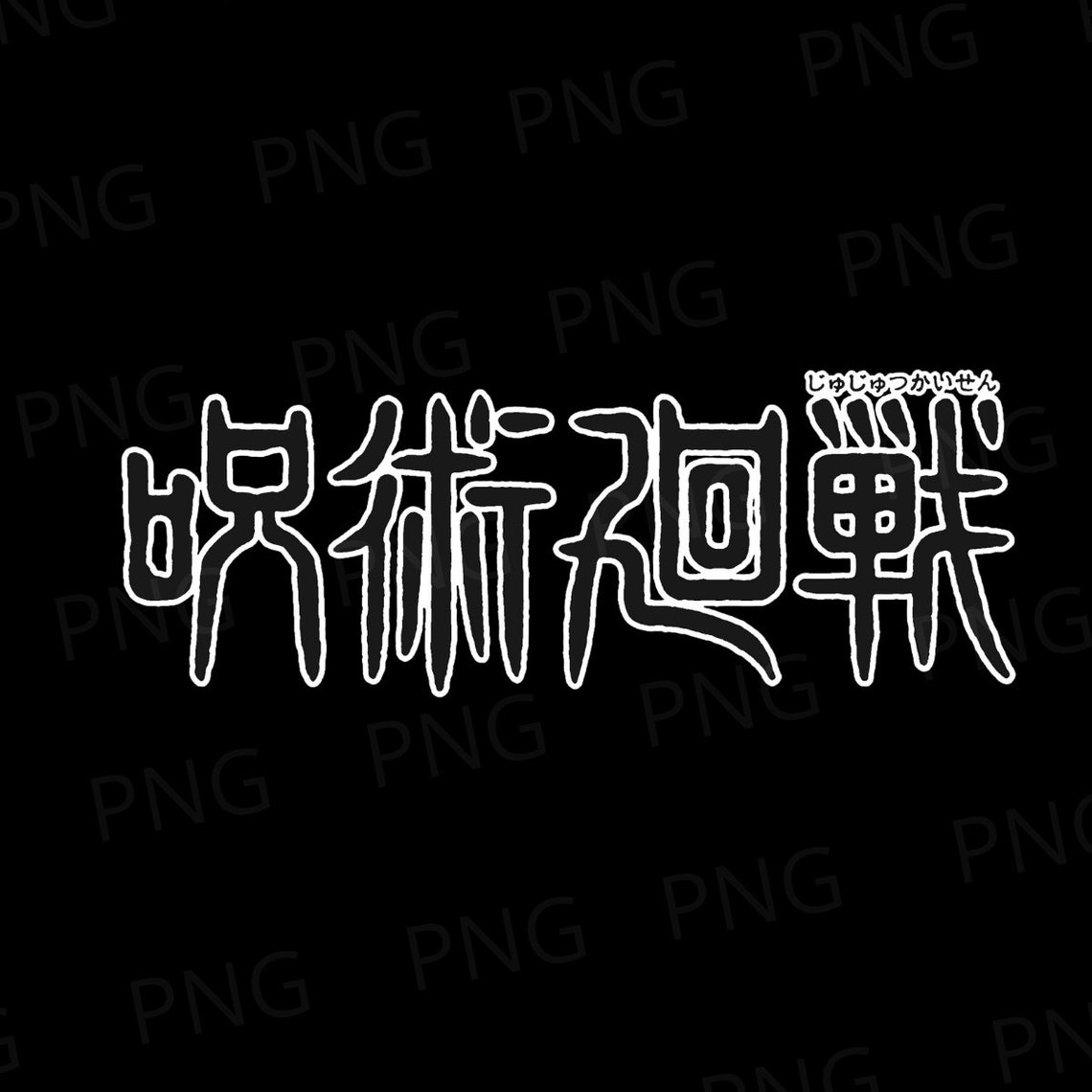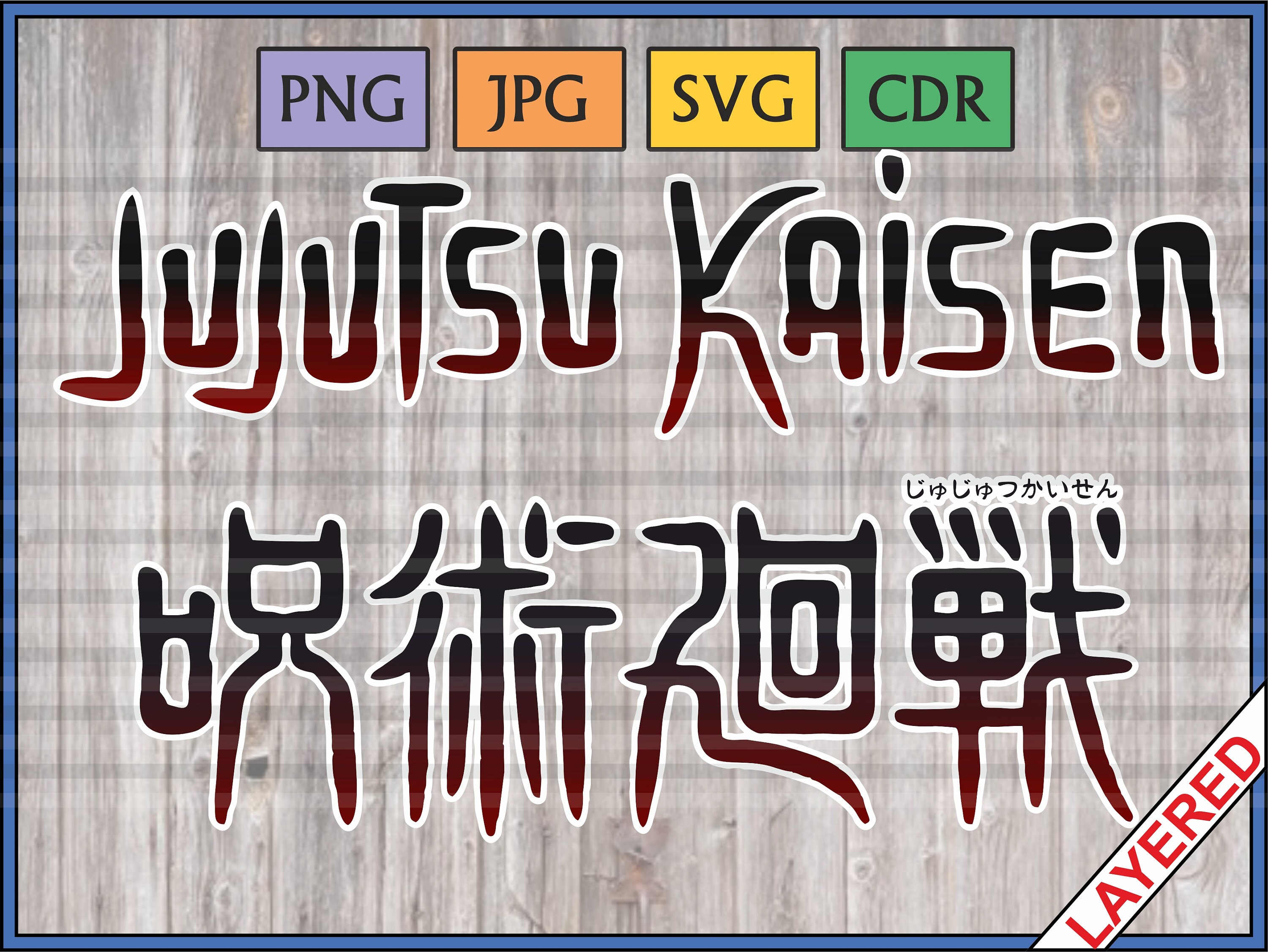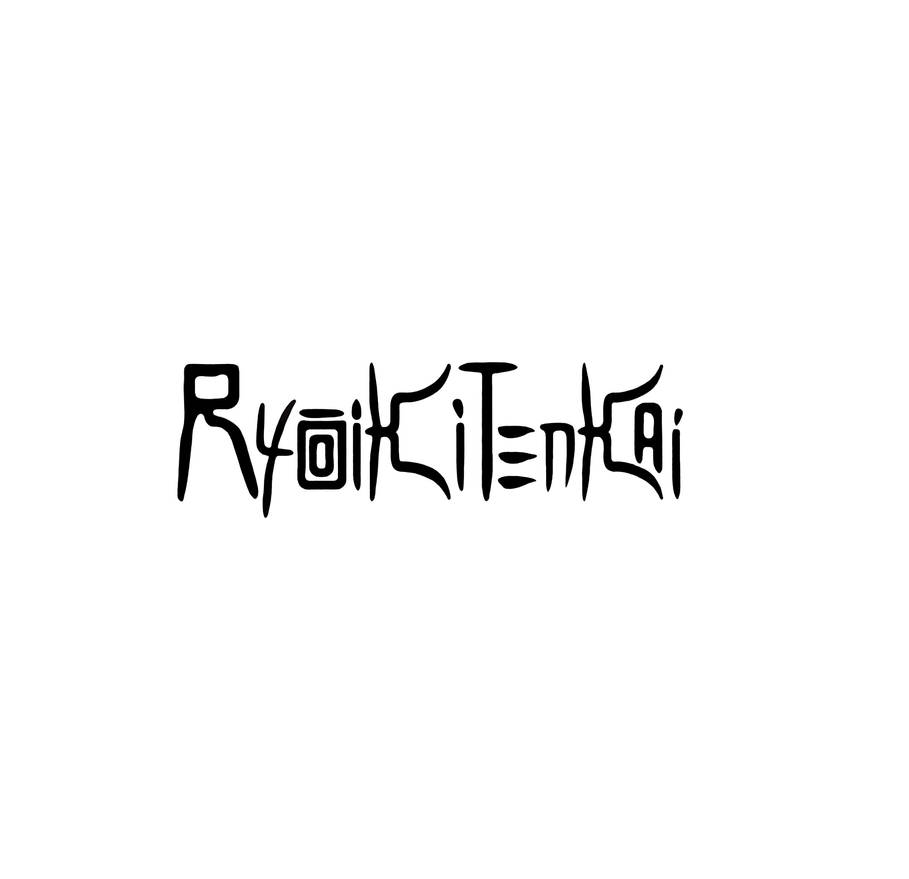
Jujutsu Kaisen Font
Jujutsu Kaisen Font - While there is no official jujutsu kaisen font. Elevate your designs and make a. Web jujutsu kaisen is a free font for personal use created by fg studios. Jujutsu kaisen font generator & download is available free at fontbolt. Web free jujutsu kaisen font download. This font can be used to. Try our text generator and create cool graphics for jujutsu kaisen font, then you can save. You will find direct links for free downloading the jujutsu kaisen font ttf file in this post. Jujutsu kaisen is a script type font that can be used on any device such as pc, mac, linux, ios and.
This font can be used to. Web free jujutsu kaisen font download. Try our text generator and create cool graphics for jujutsu kaisen font, then you can save. While there is no official jujutsu kaisen font. You will find direct links for free downloading the jujutsu kaisen font ttf file in this post. Jujutsu kaisen font generator & download is available free at fontbolt. Web jujutsu kaisen is a free font for personal use created by fg studios. Elevate your designs and make a. Jujutsu kaisen is a script type font that can be used on any device such as pc, mac, linux, ios and.
Jujutsu kaisen is a script type font that can be used on any device such as pc, mac, linux, ios and. This font can be used to. Web free jujutsu kaisen font download. You will find direct links for free downloading the jujutsu kaisen font ttf file in this post. Try our text generator and create cool graphics for jujutsu kaisen font, then you can save. Elevate your designs and make a. Web jujutsu kaisen is a free font for personal use created by fg studios. While there is no official jujutsu kaisen font. Jujutsu kaisen font generator & download is available free at fontbolt.
Web free jujutsu kaisen font download. You will find direct links for free downloading the jujutsu kaisen font ttf file in this post. Jujutsu kaisen font generator & download is available free at fontbolt. Try our text generator and create cool graphics for jujutsu kaisen font, then you can save. Jujutsu kaisen is a script type font that can be.
This font can be used to. Jujutsu kaisen is a script type font that can be used on any device such as pc, mac, linux, ios and. You will find direct links for free downloading the jujutsu kaisen font ttf file in this post. Try our text generator and create cool graphics for jujutsu kaisen font, then you can save..
Jujutsu kaisen logo font 2021
Web jujutsu kaisen is a free font for personal use created by fg studios. Try our text generator and create cool graphics for jujutsu kaisen font, then you can save. Jujutsu kaisen is a script type font that can be used on any device such as pc, mac, linux, ios and. This font can be used to. While there is.
Jujutsu kaisen is a script type font that can be used on any device such as pc, mac, linux, ios and. This font can be used to. You will find direct links for free downloading the jujutsu kaisen font ttf file in this post. Jujutsu kaisen font generator & download is available free at fontbolt. Elevate your designs and make.
Jujutsu Kaisen Font
While there is no official jujutsu kaisen font. Try our text generator and create cool graphics for jujutsu kaisen font, then you can save. You will find direct links for free downloading the jujutsu kaisen font ttf file in this post. This font can be used to. Jujutsu kaisen is a script type font that can be used on any.
Try our text generator and create cool graphics for jujutsu kaisen font, then you can save. Web free jujutsu kaisen font download. You will find direct links for free downloading the jujutsu kaisen font ttf file in this post. This font can be used to. Jujutsu kaisen font generator & download is available free at fontbolt.
Jujutsu Kaisen Font
This font can be used to. You will find direct links for free downloading the jujutsu kaisen font ttf file in this post. Elevate your designs and make a. Try our text generator and create cool graphics for jujutsu kaisen font, then you can save. Jujutsu kaisen is a script type font that can be used on any device such.
Jujutsu Kaisen Font Sticker Sheet for Bullet Journals Etsy Ireland
Elevate your designs and make a. Try our text generator and create cool graphics for jujutsu kaisen font, then you can save. Jujutsu kaisen is a script type font that can be used on any device such as pc, mac, linux, ios and. You will find direct links for free downloading the jujutsu kaisen font ttf file in this post..
Jujutsu Kaisen Font Download Free Fonts
Web jujutsu kaisen is a free font for personal use created by fg studios. This font can be used to. Web free jujutsu kaisen font download. Try our text generator and create cool graphics for jujutsu kaisen font, then you can save. While there is no official jujutsu kaisen font.
ryoiki tenkai jujutsu kaisen font by Nikashahinzadeh on DeviantArt
Web jujutsu kaisen is a free font for personal use created by fg studios. Jujutsu kaisen font generator & download is available free at fontbolt. While there is no official jujutsu kaisen font. Try our text generator and create cool graphics for jujutsu kaisen font, then you can save. Elevate your designs and make a.
Jujutsu Kaisen Font Generator & Download Is Available Free At Fontbolt.
While there is no official jujutsu kaisen font. Try our text generator and create cool graphics for jujutsu kaisen font, then you can save. Web free jujutsu kaisen font download. This font can be used to.
Web jujutsu kaisen is a free font for personal use created by fg studios. Jujutsu kaisen is a script type font that can be used on any device such as pc, mac, linux, ios and. You will find direct links for free downloading the jujutsu kaisen font ttf file in this post.